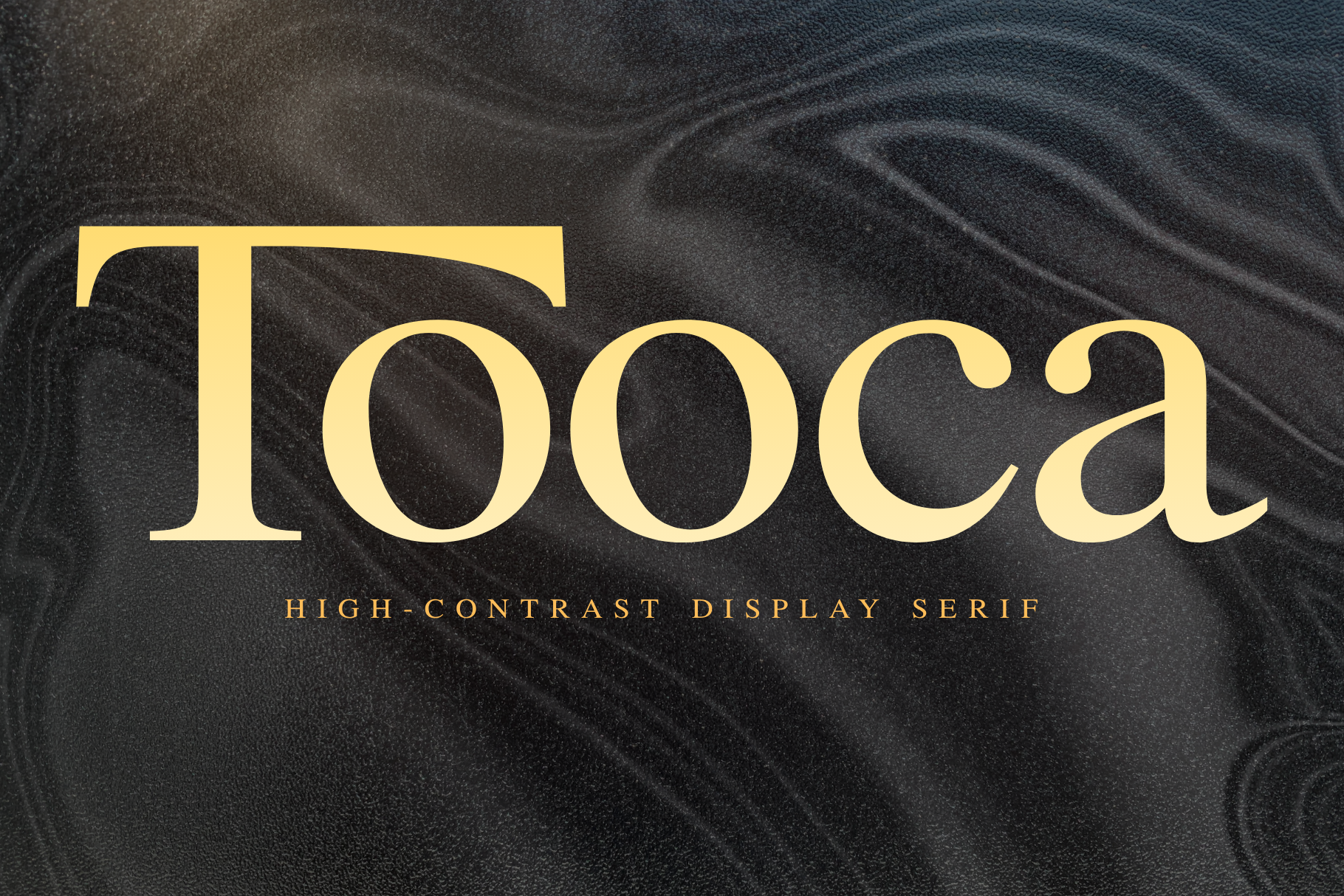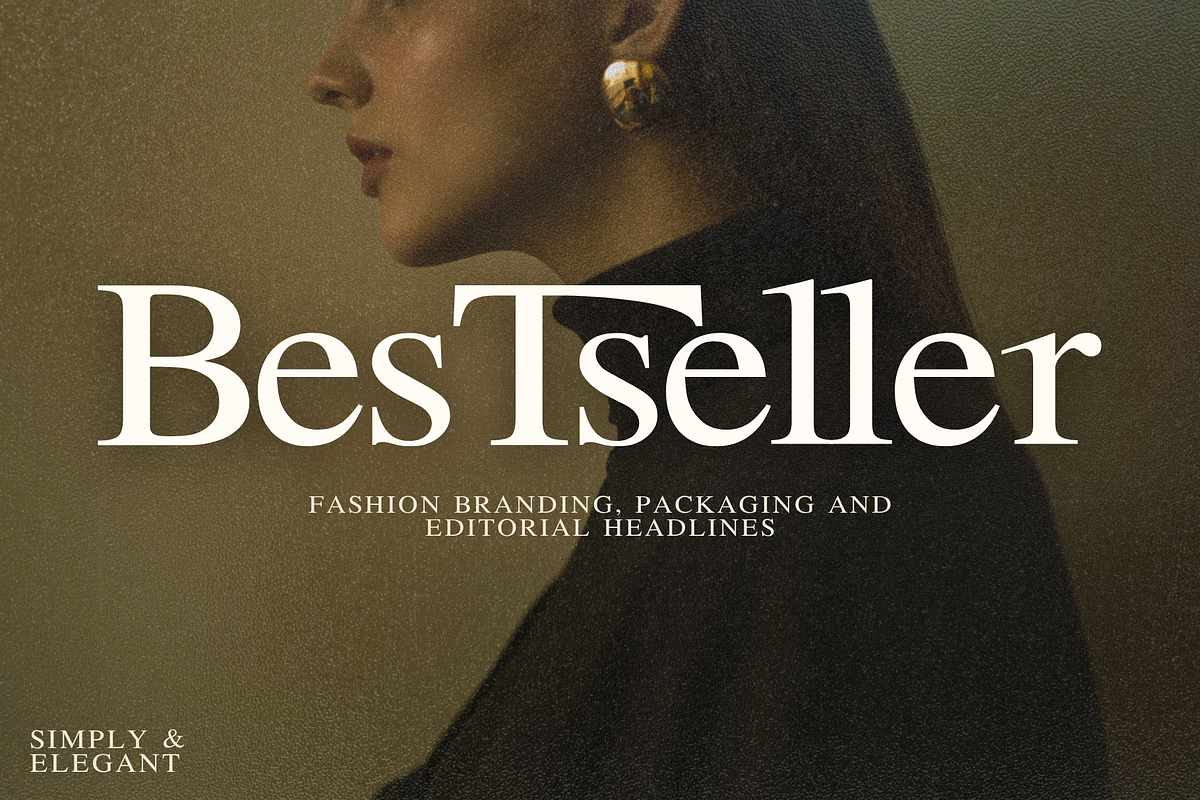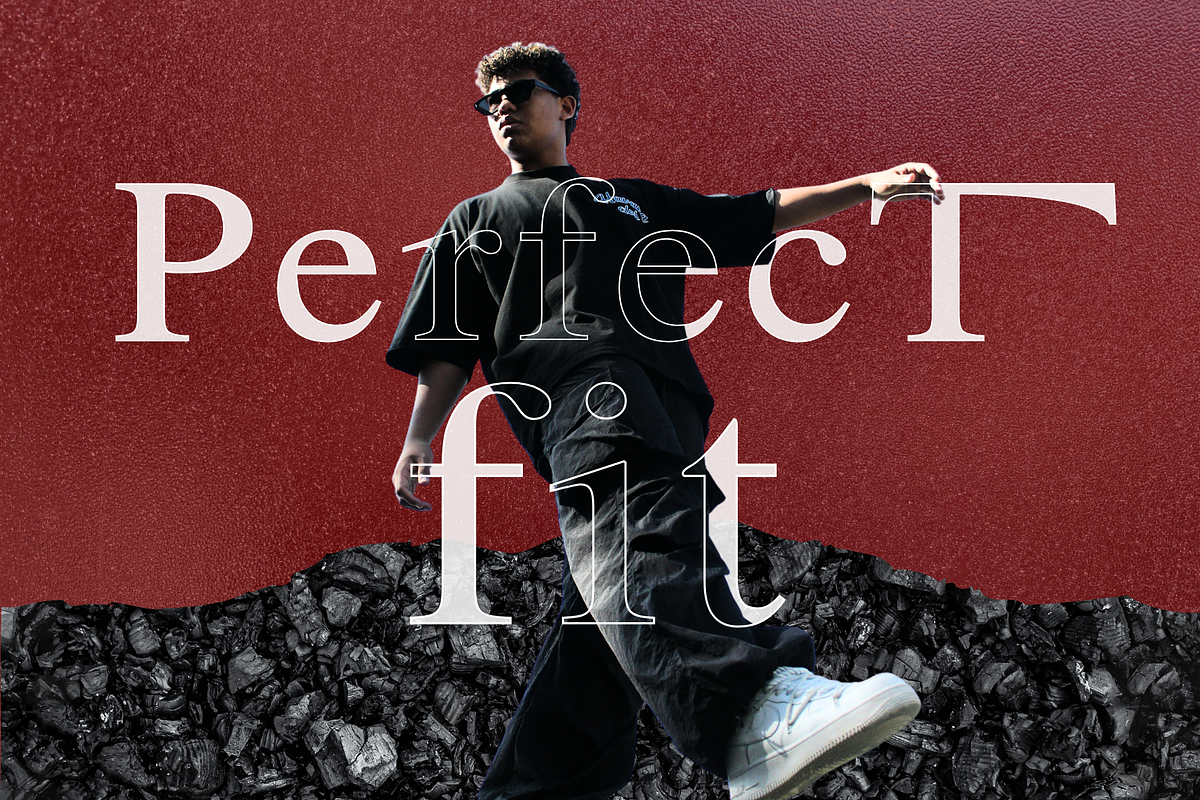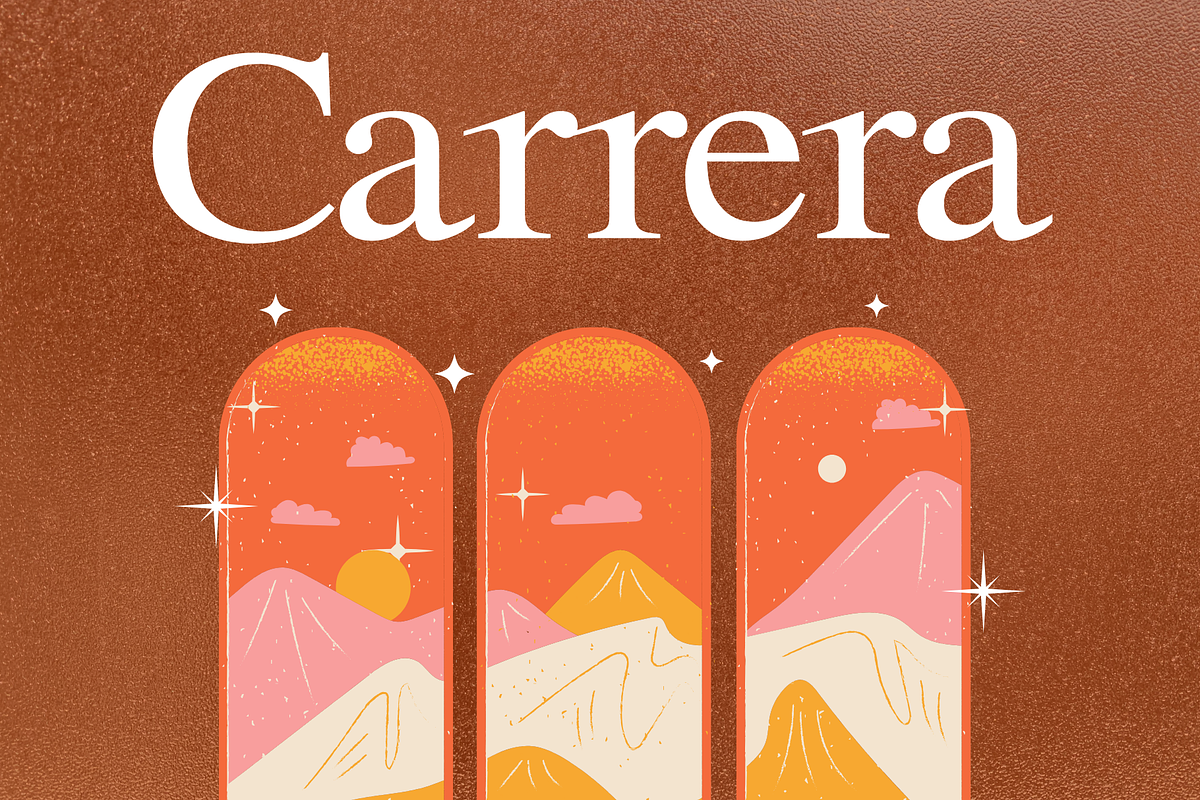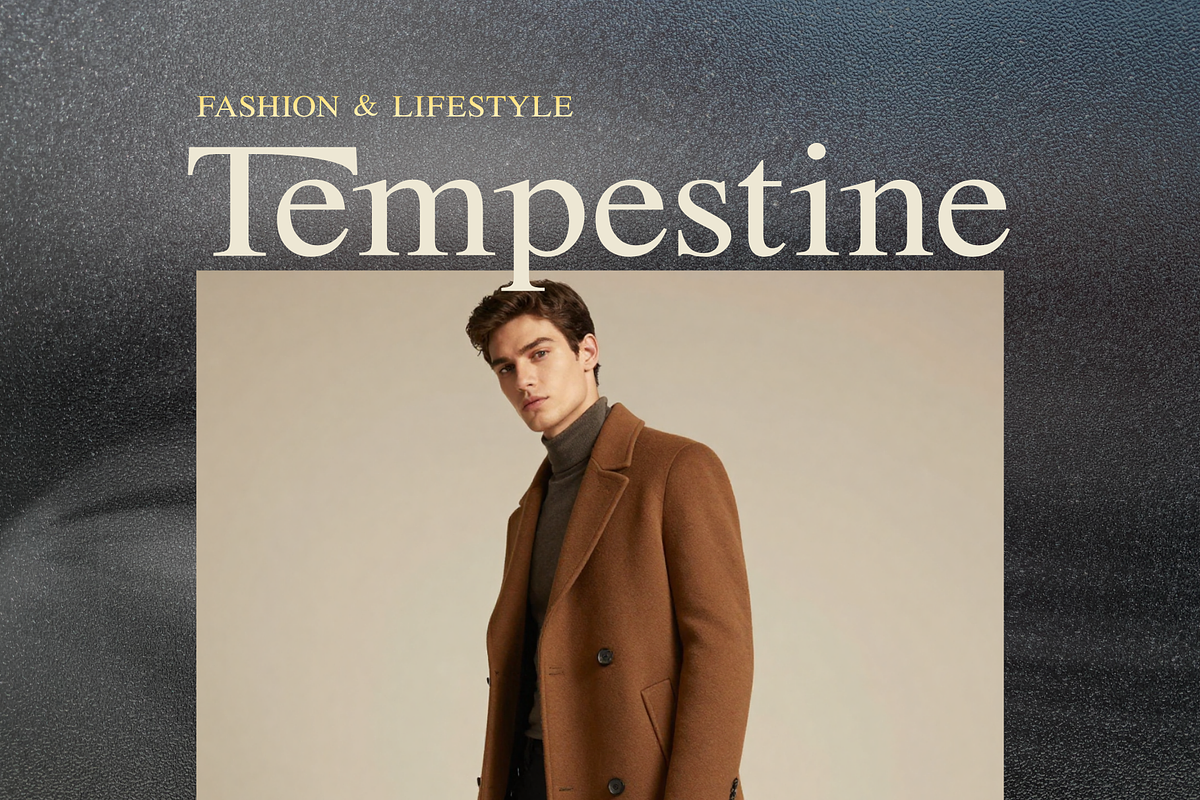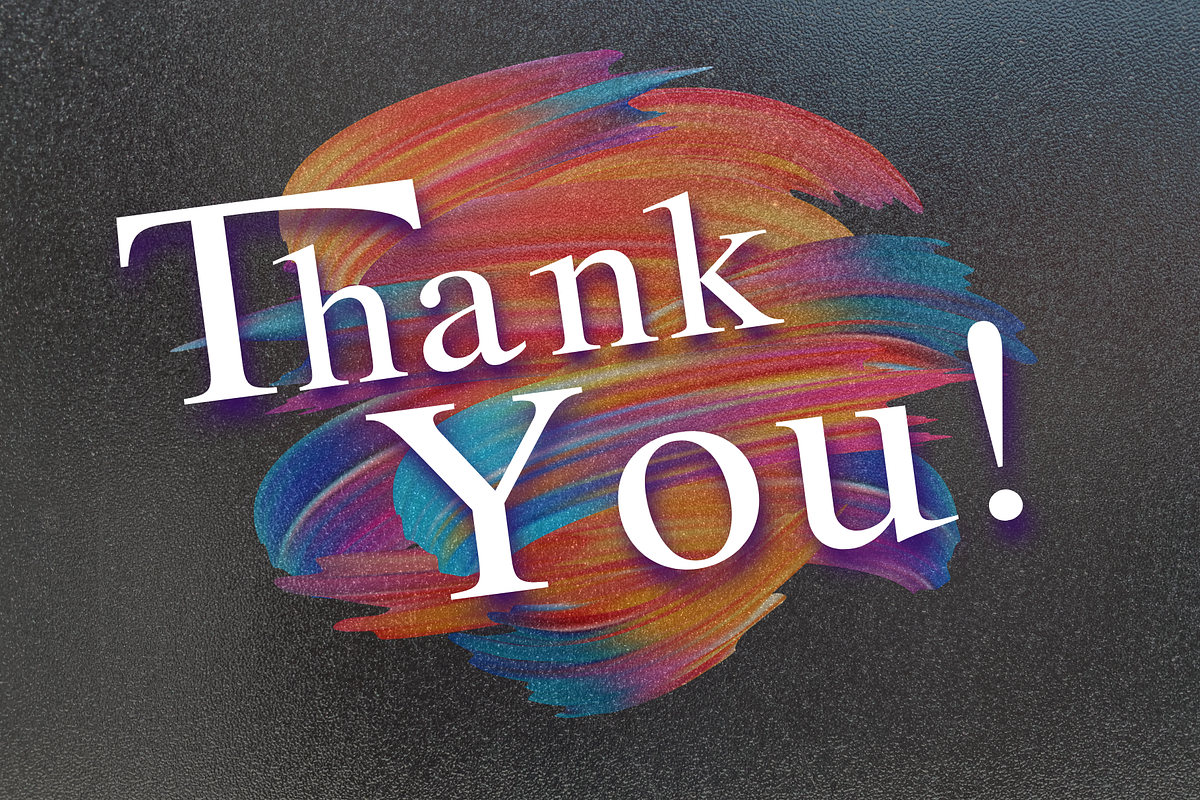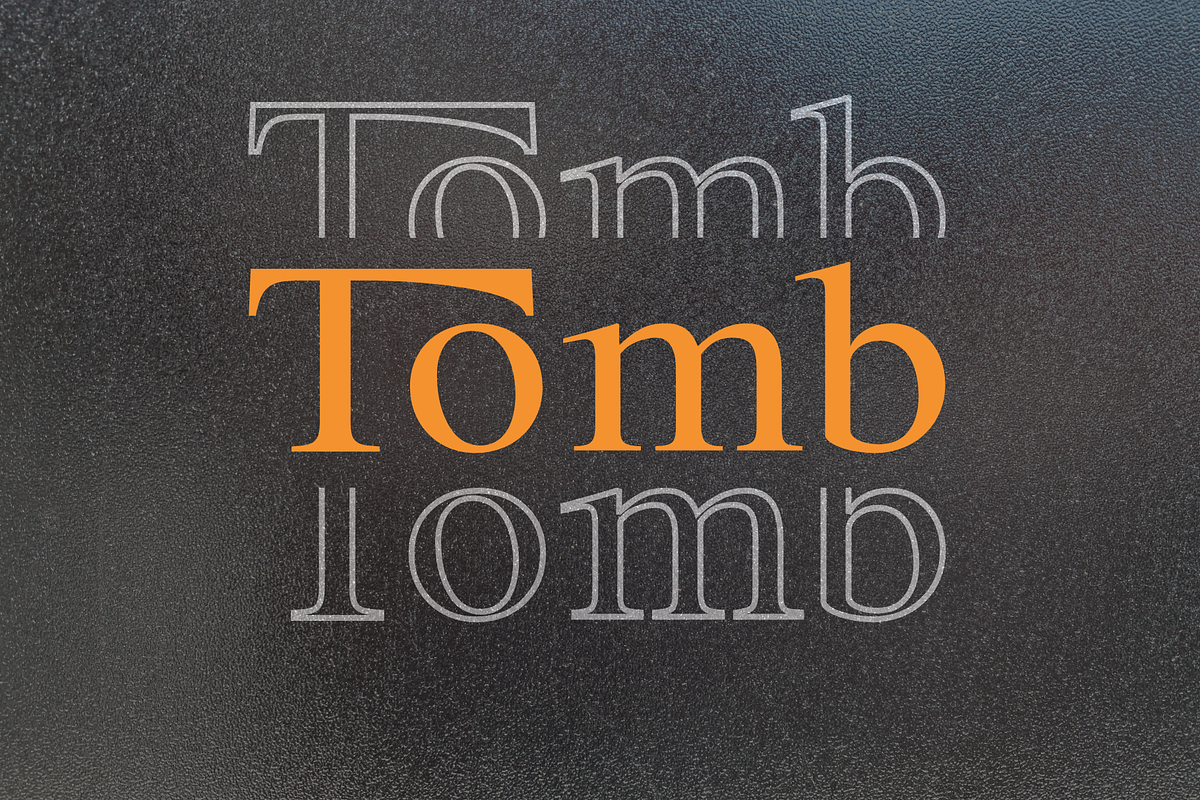
Tooca Serif Font
Tooca is a bold display serif made for designs that need to feel strong, stylish, and premium. It has high-contrast strokes, smooth curves, sharp serif details, and a clean editorial look that works well for logos, headlines, packaging, posters, fashion branding, and modern visual identities.
I created Tooca for designers who want typography that feels eye-catching without being messy. It is simple to use, but still has enough personality to make brand names, titles, and product designs stand out.
Tooca works best as a display font for short words, brand names, large headings, packaging labels, magazine-style layouts, social posts, and premium logo concepts.
For a cleaner luxury look, try using it with a little extra letter spacing, especially in uppercase text.